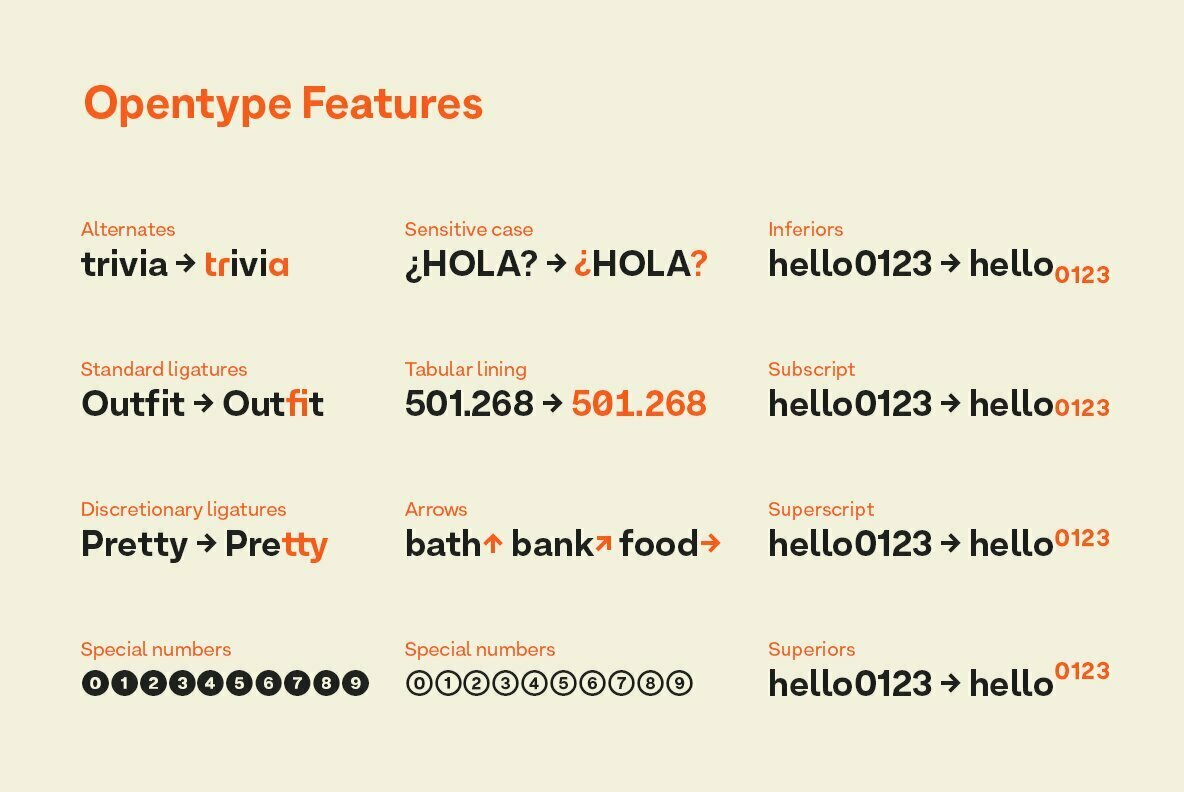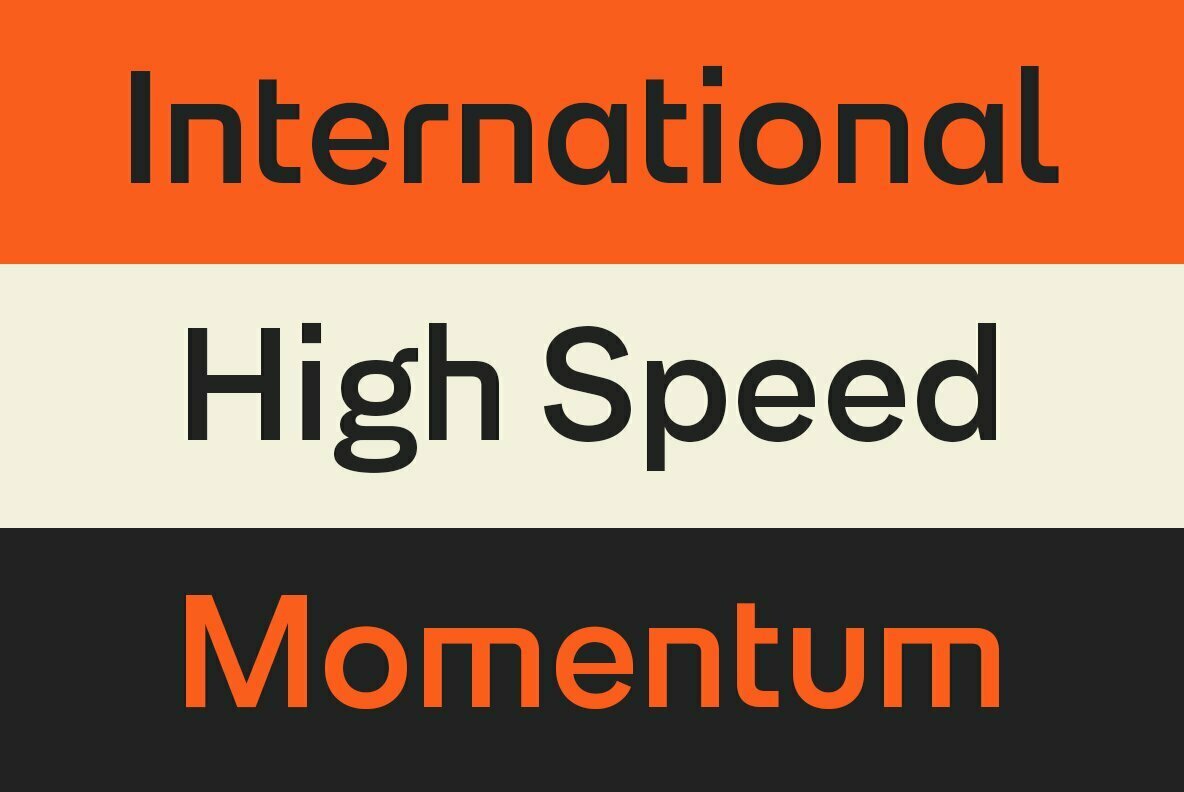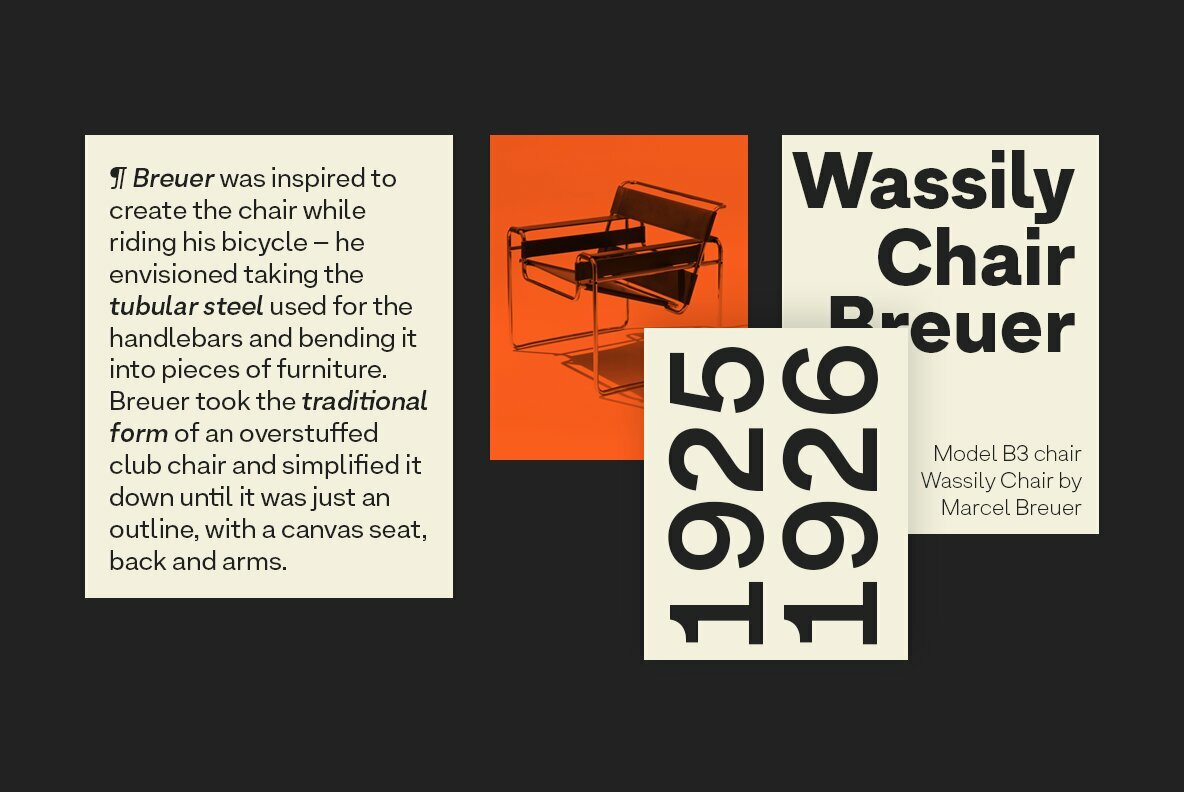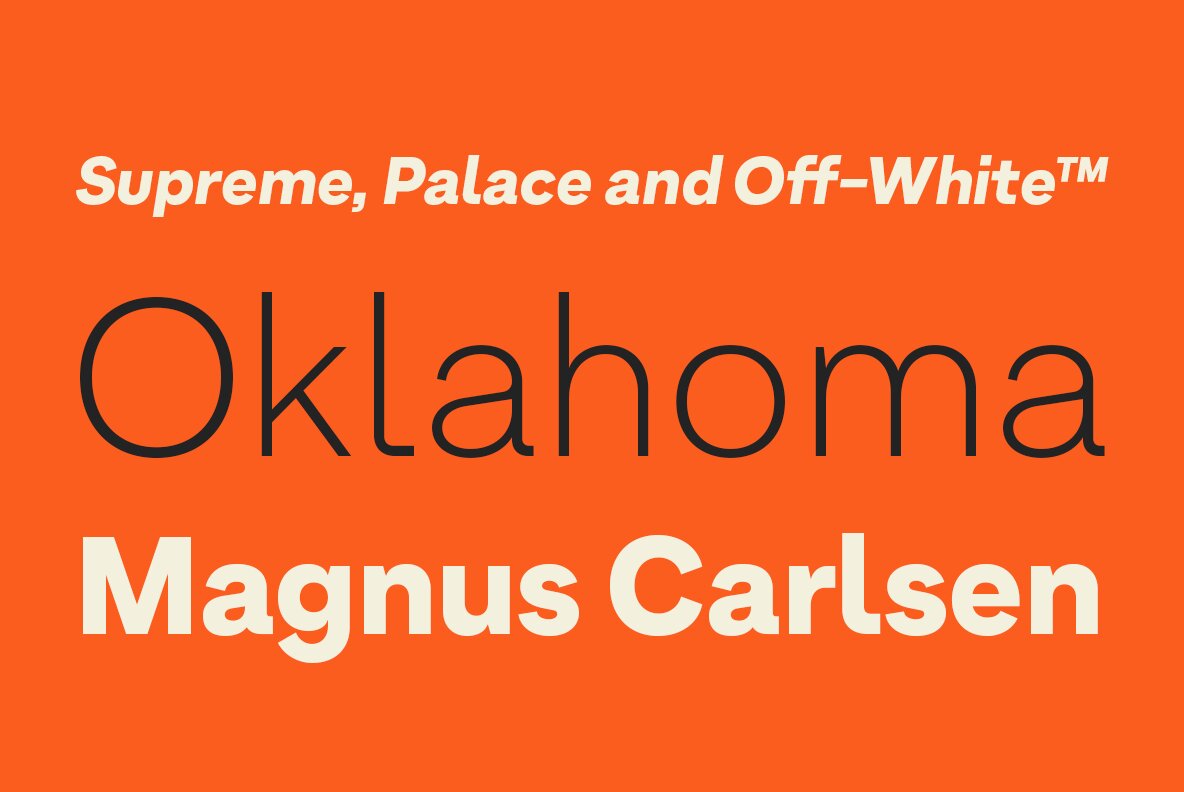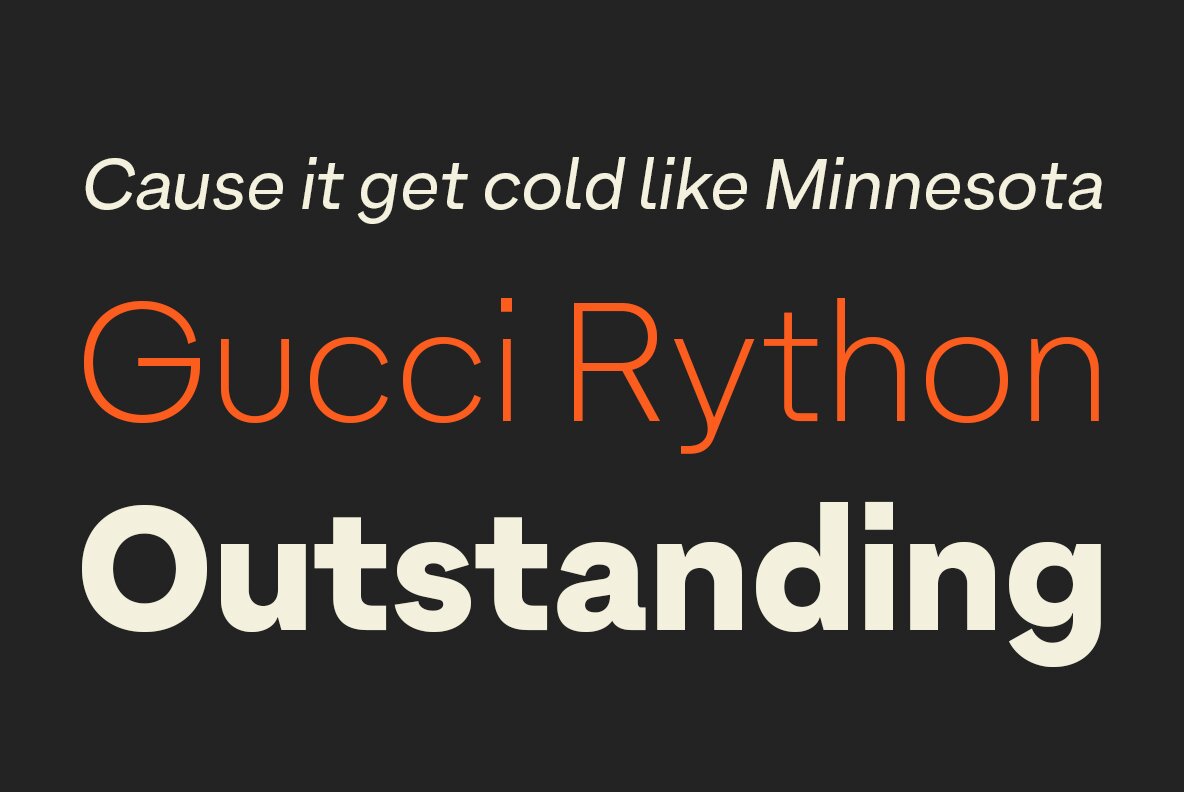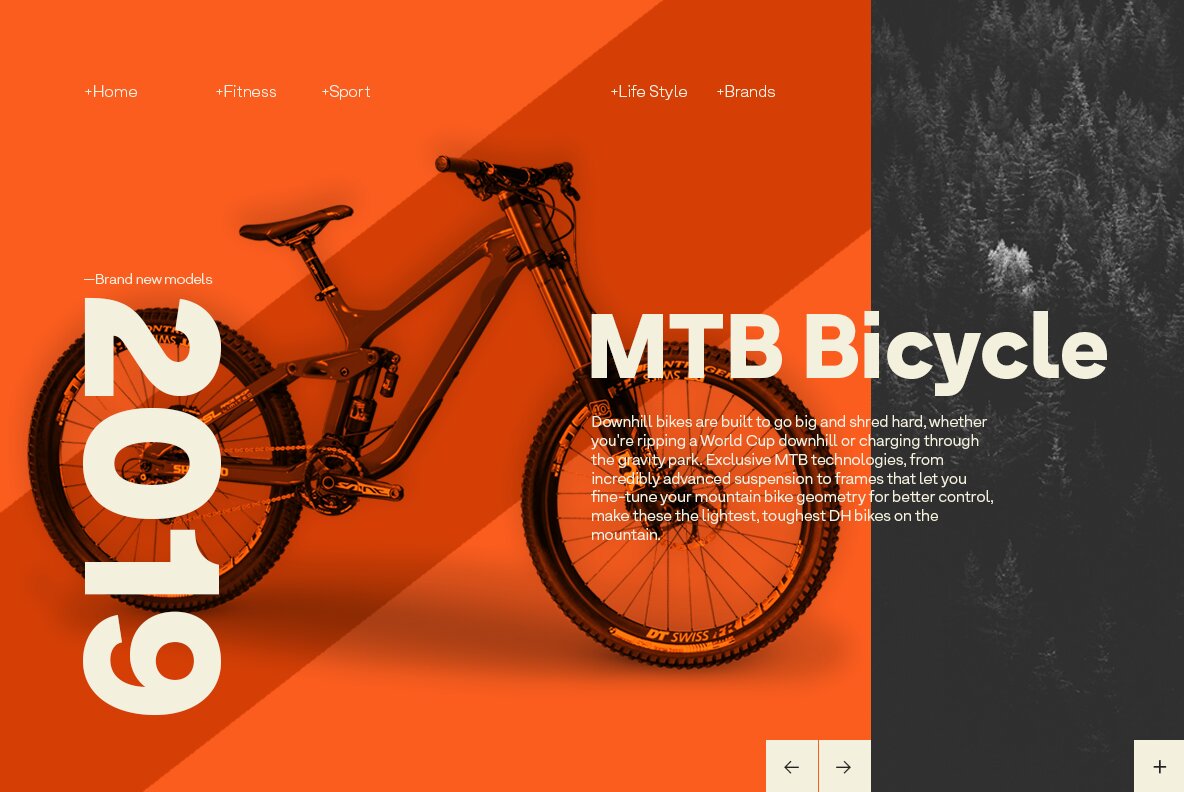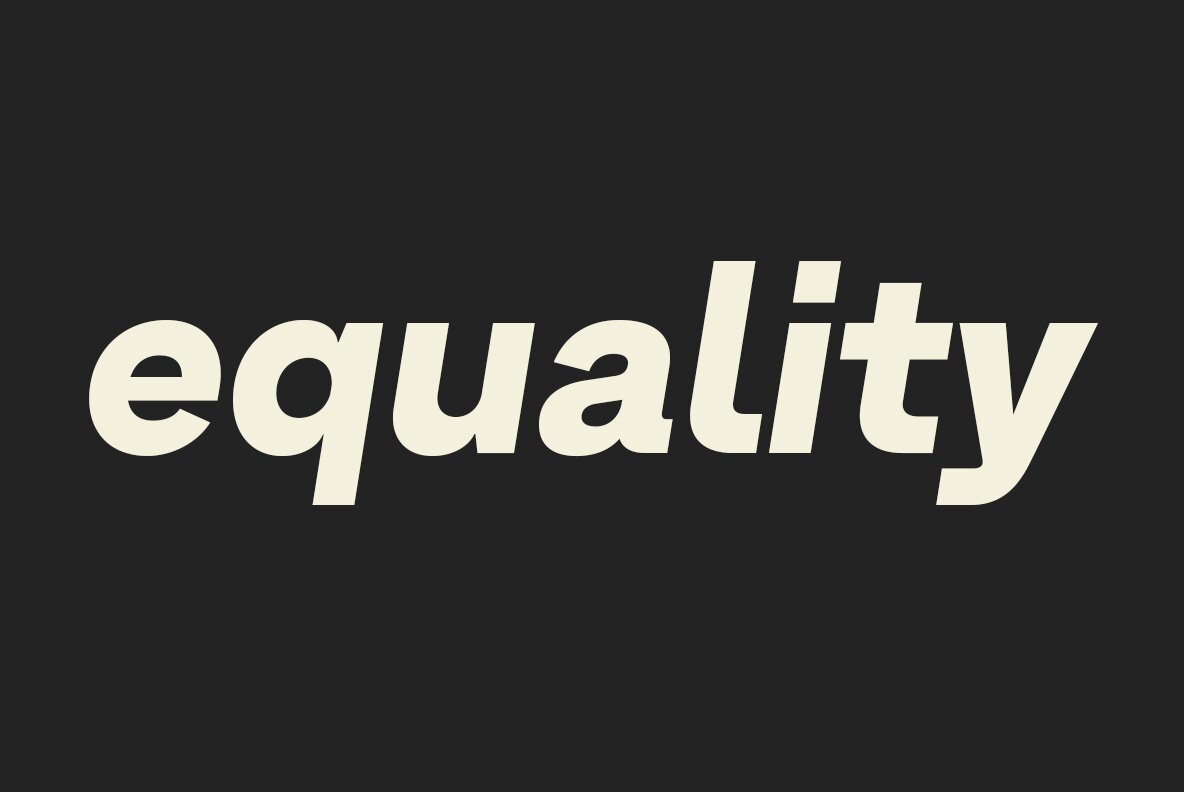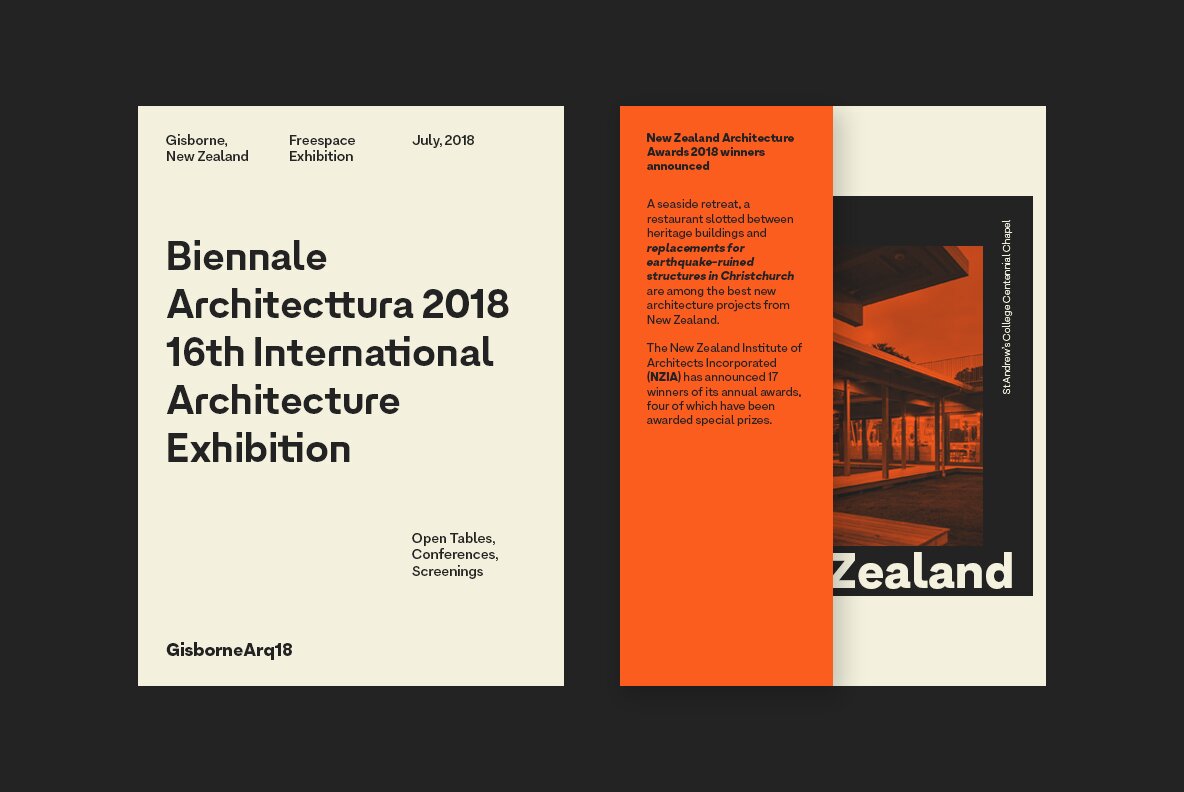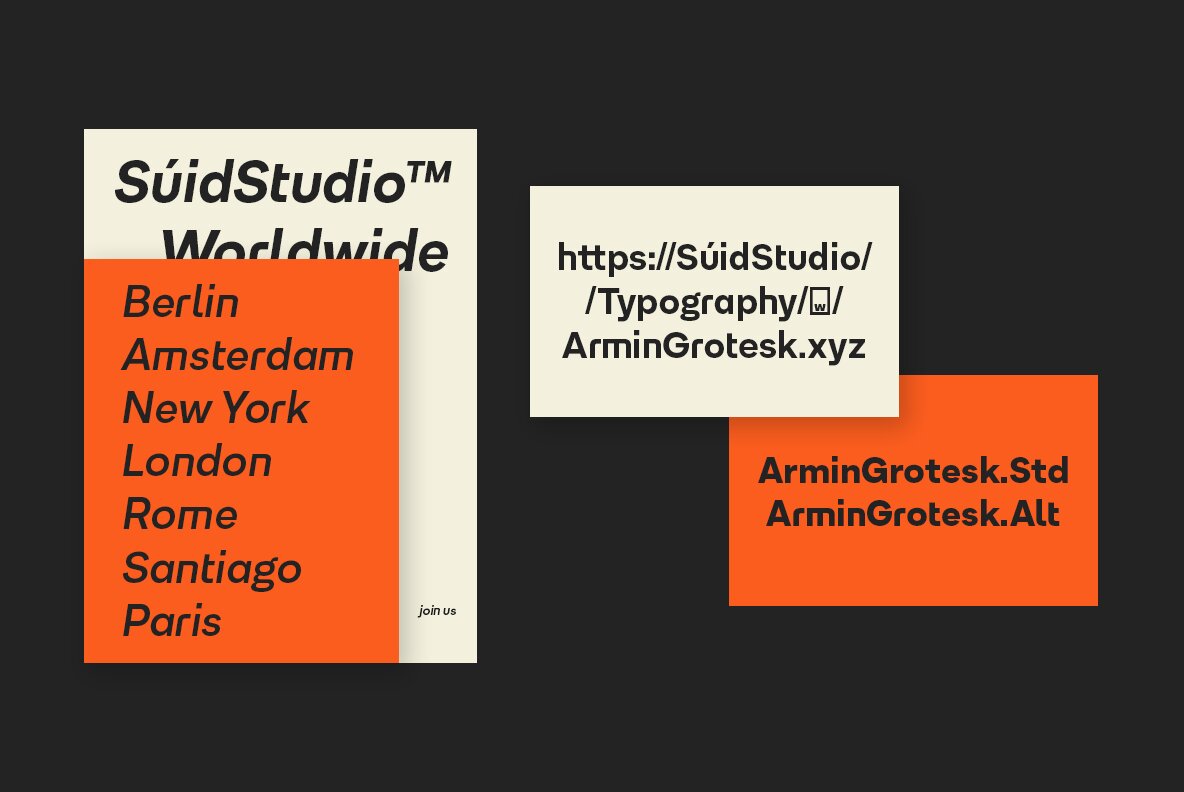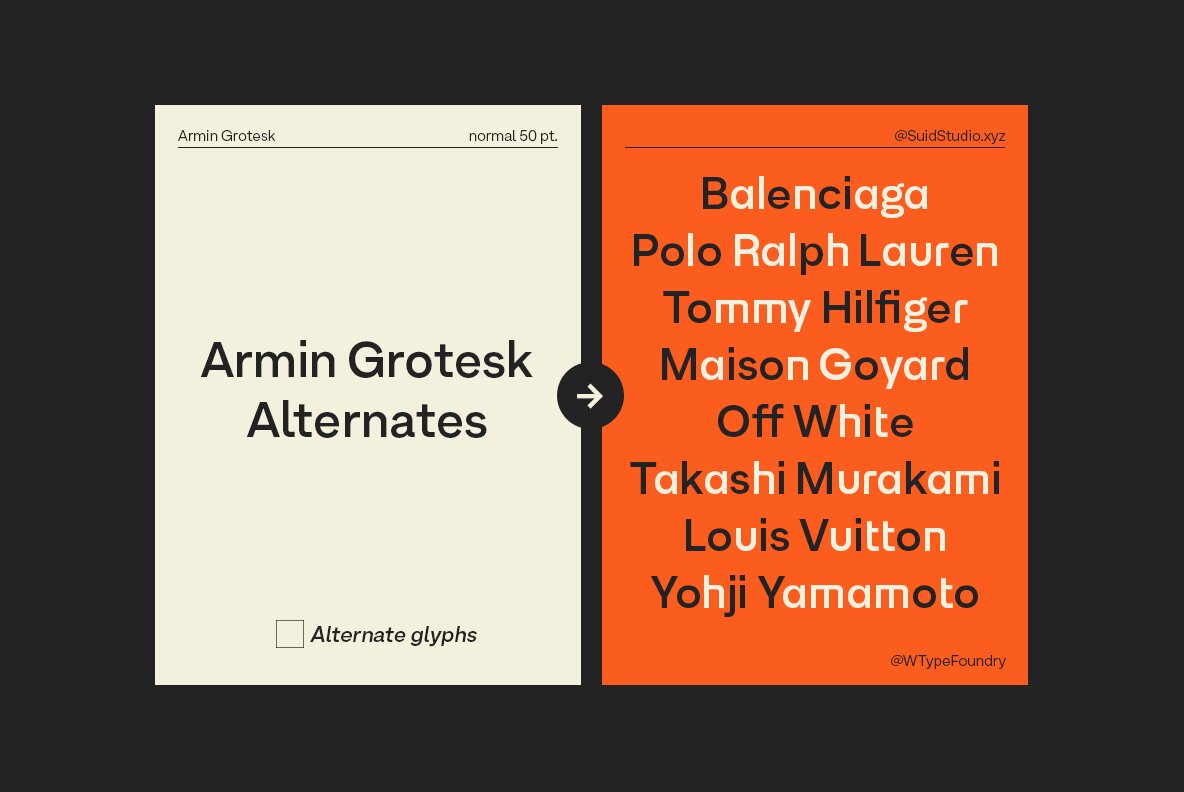
Armin Grotesk Font
As a graphic designer, sometimes it’s impossible not to be inspired by the Swiss Style, specifically the work of Armin Hofmann, who is one of its best exponents. Grids and grotesk and neo-grotesk typefaces are a fundamental part of the tools that make this aesthetic possible. A visual language that has caused full admiration since we were students. Therefore, we decided to design Armin as an homage to Hofmann’s work. Technically, we added stylistic sets applied to the letters –G, R, a, g, h, l, m, n, r, t, u, y– to make Armin more eclectic and suitable for the creation of any visual language.